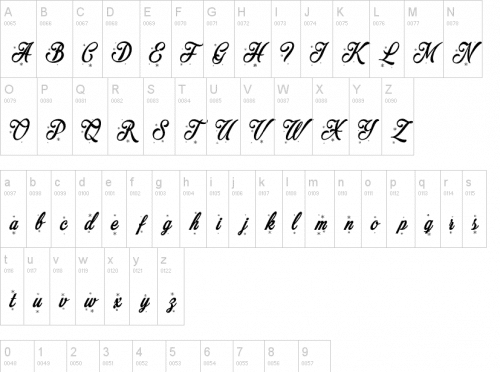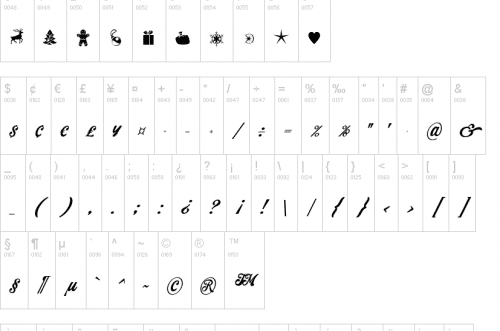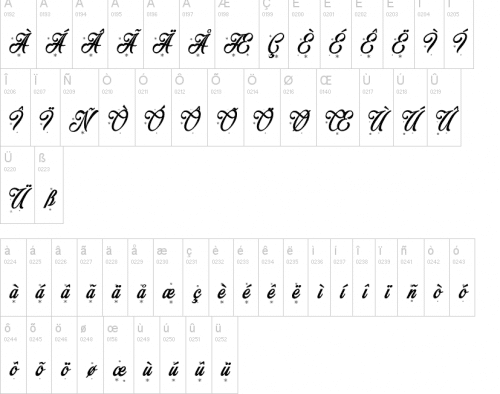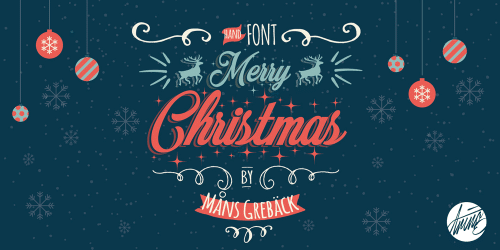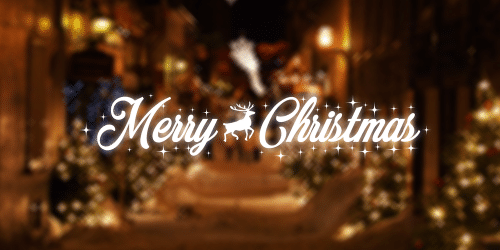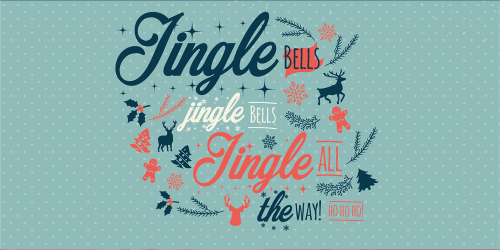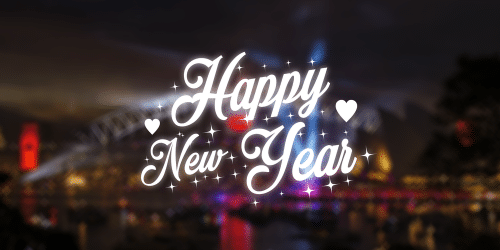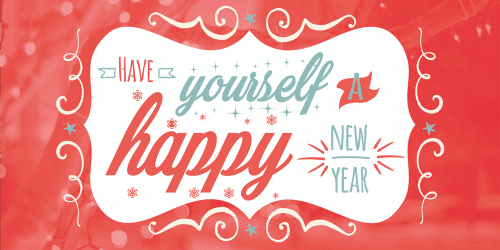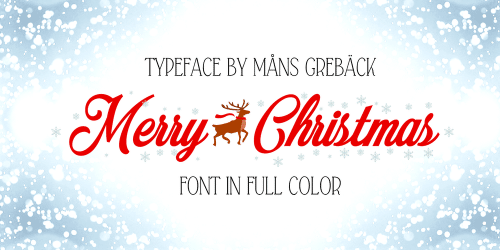
Merry Christmas Font Family is a decorative Christmas and New Year’s Eve typeface. Includes a full-color typeface for Adobe Photoshop and Adobe Illustrator!